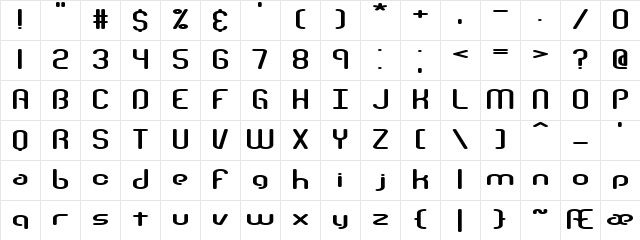
Telephasic BRK Normal Free Font
Telephasic BRK Normal
Design Context for Telephasic BRK
Telephasic BRK is a composed and adaptable typeface that performs quietly and consistently across a wide range of design contexts.